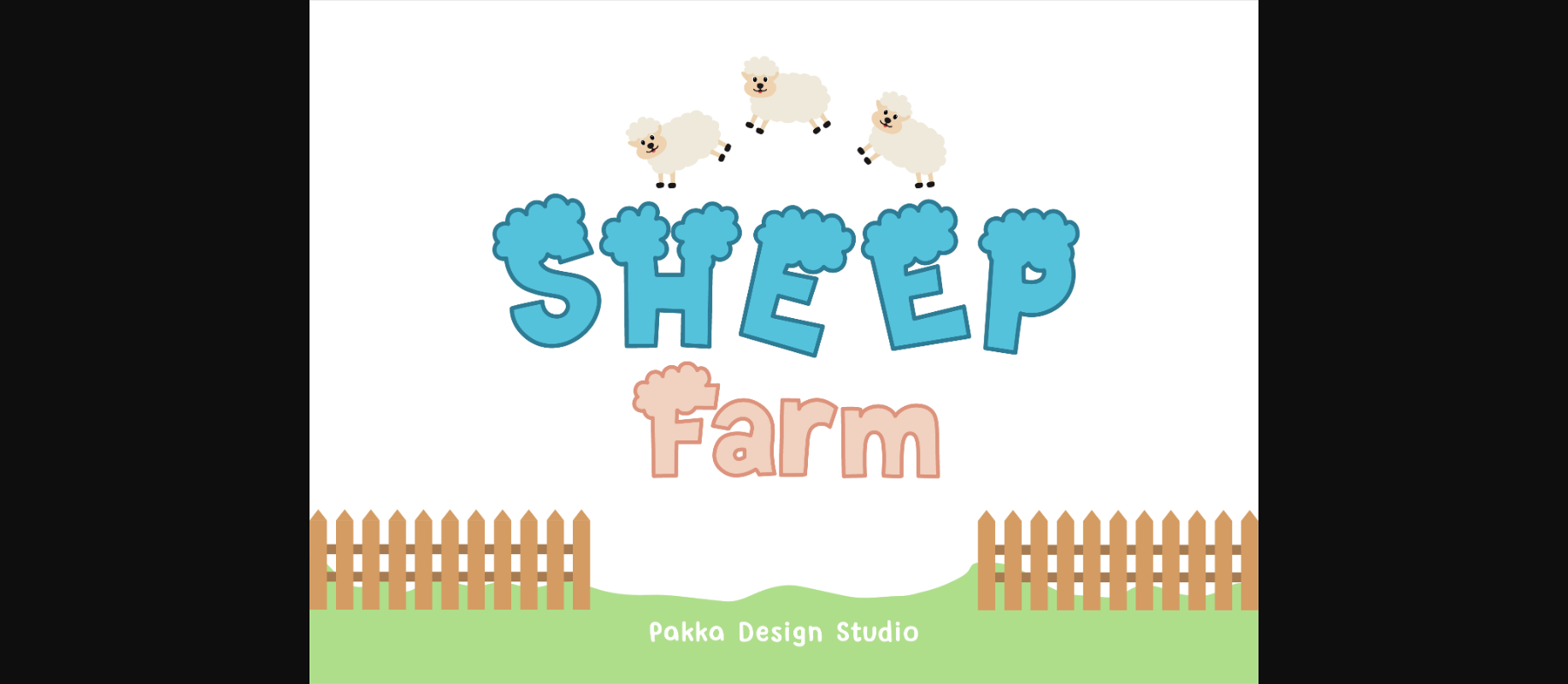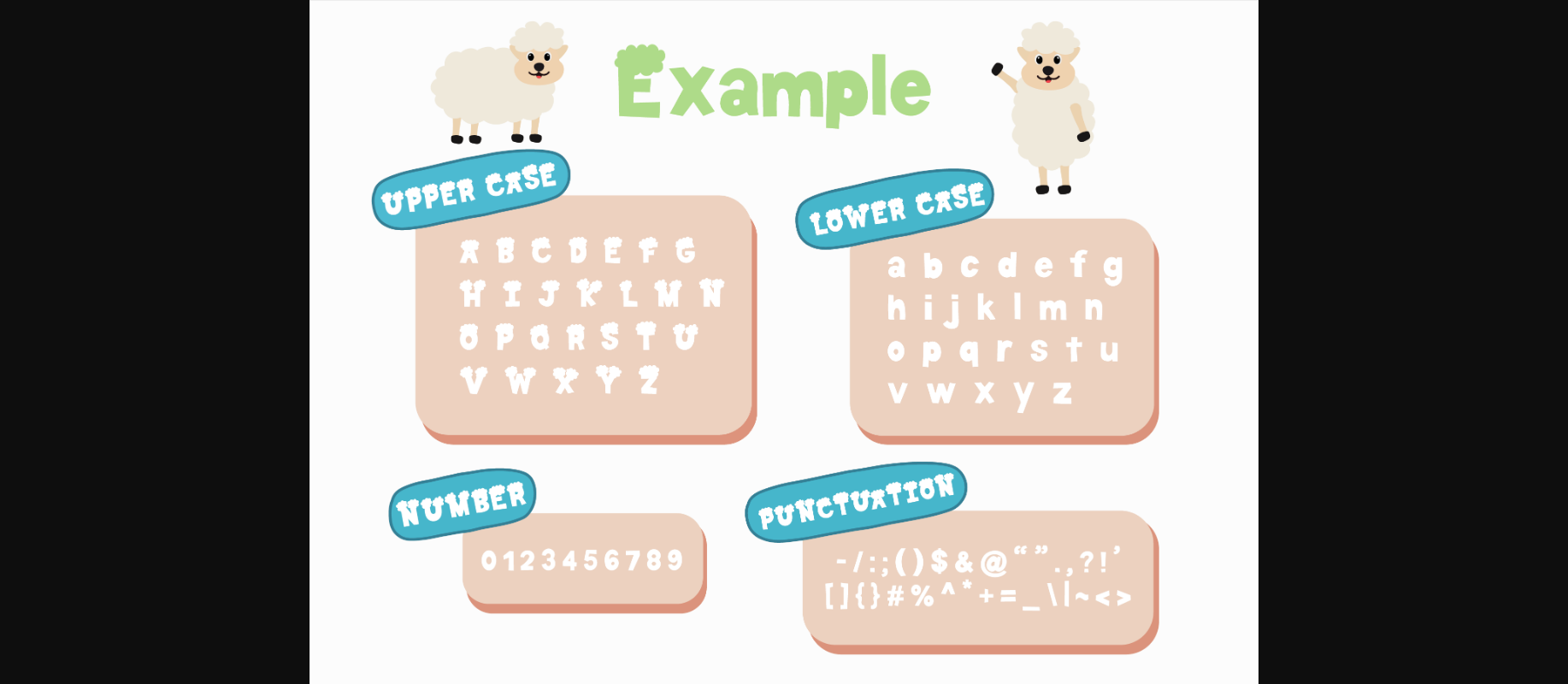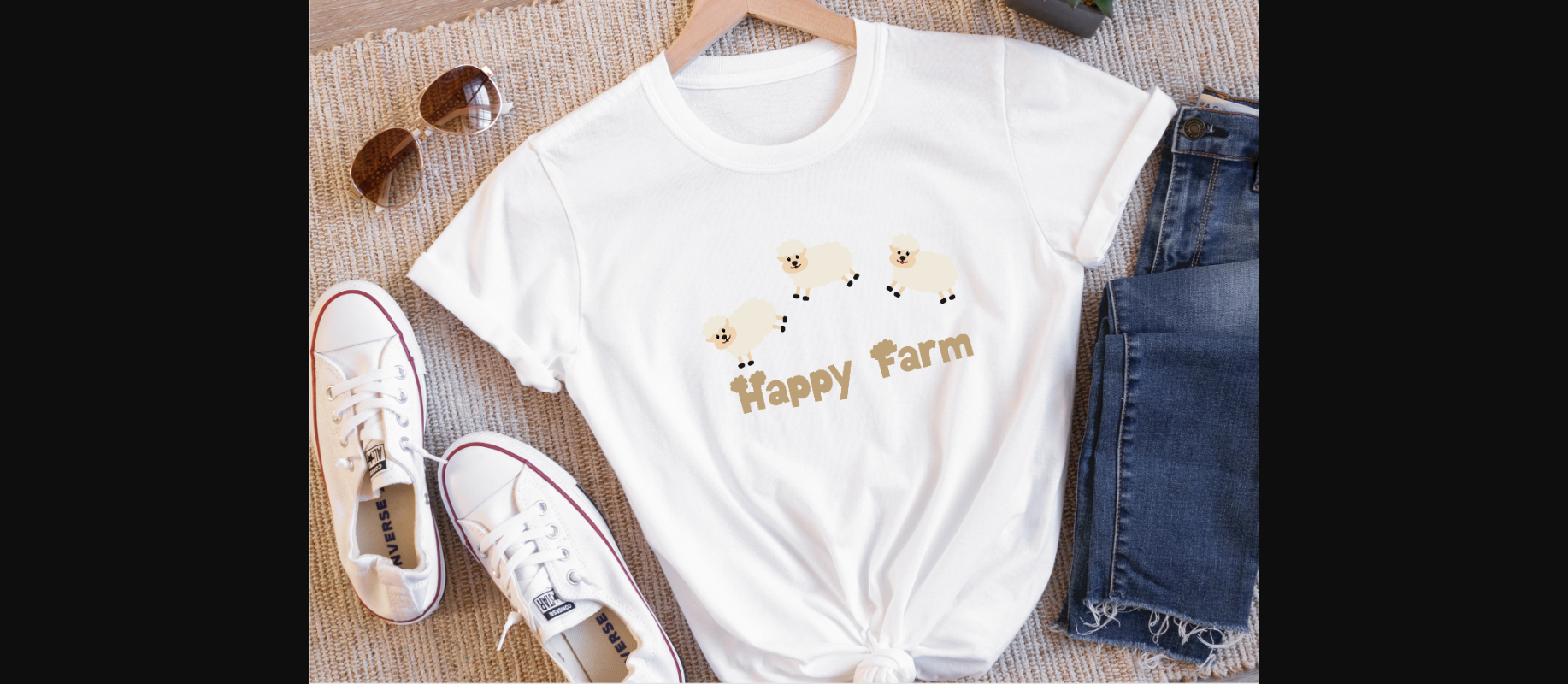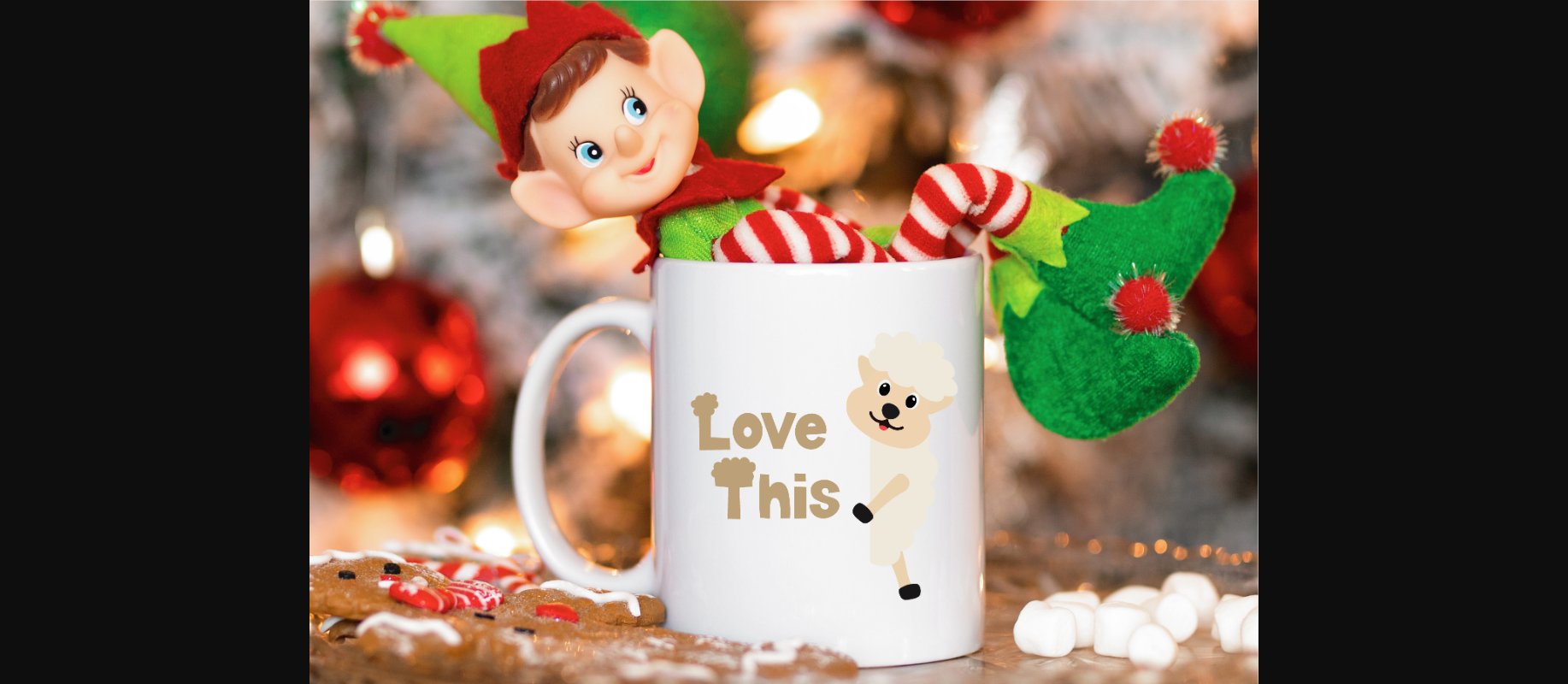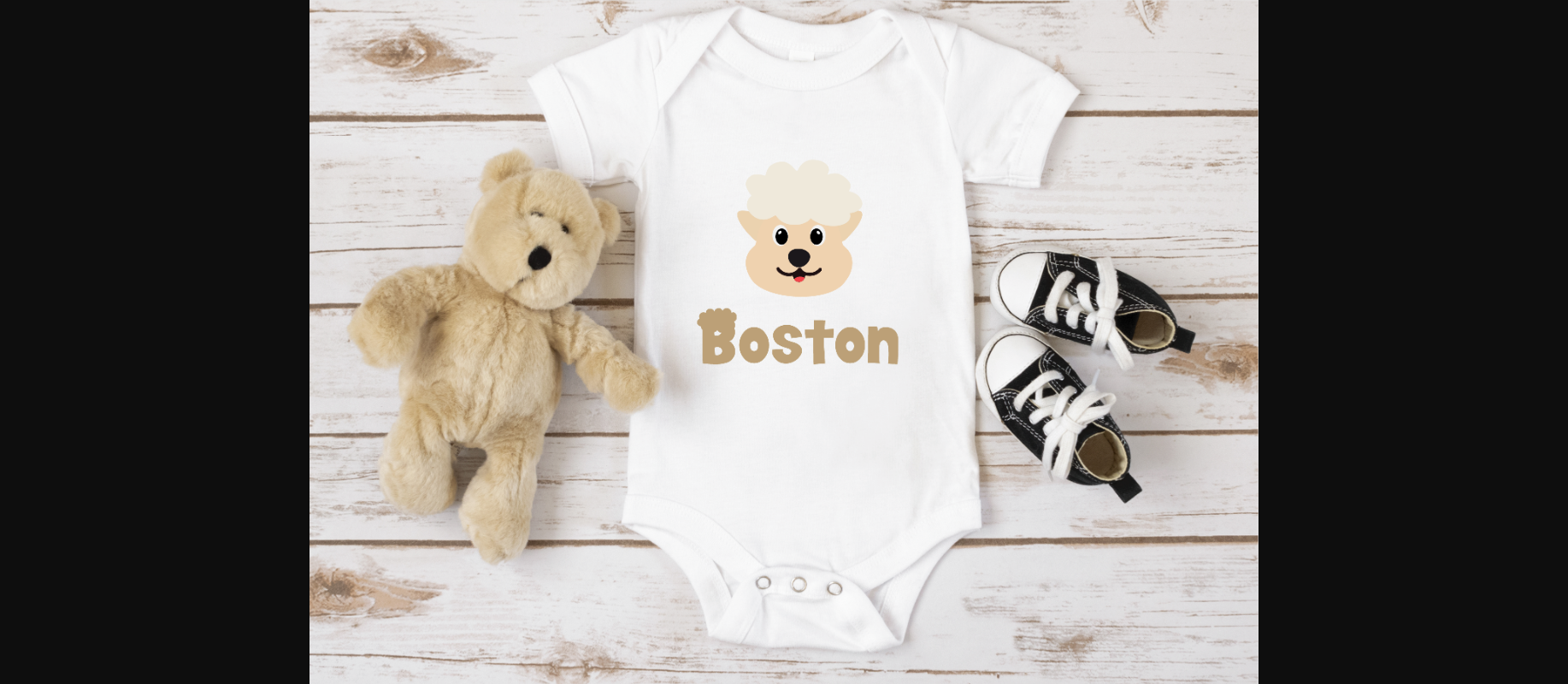
Sheep Farm Font
About Sheep Farm Font
The “Sheep Farm” display font is a fluffy and fun collection of letters as if each alphabet is covered in cozy, soft fur. It’s a font that captures the essence of a visit to a friendly farm, reminiscent of petting adorable sheep and enjoying the countryside.
With its furry appearance, this font adds a touch of warmth and playfulness to your design. It conveys the spirit of farmyard adventures and the delightful world of cute farm animals, making it an ideal choice for projects related to kids, nature, or anything that brings the warmth and charm of a farm to life.